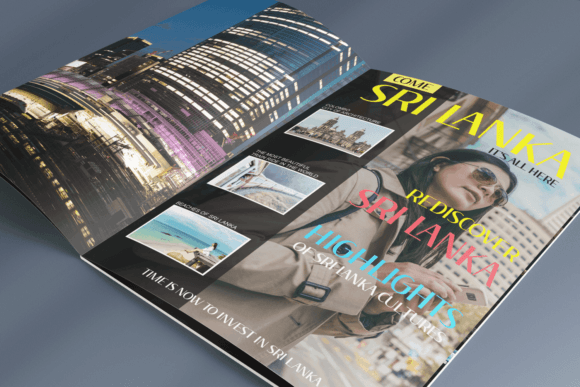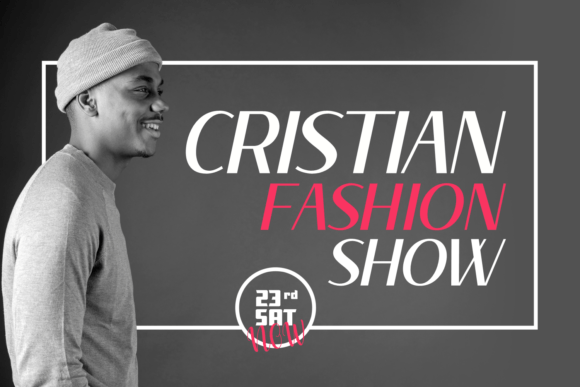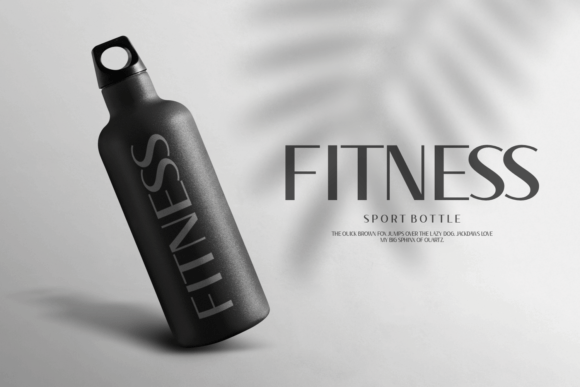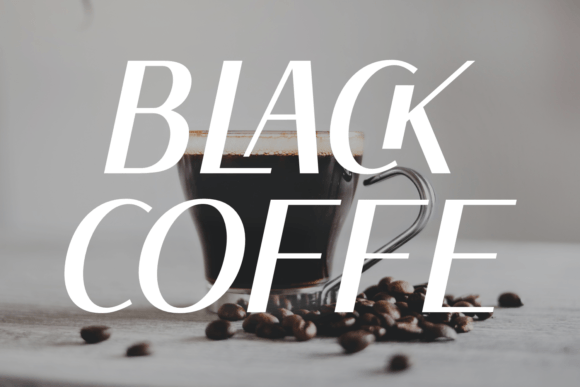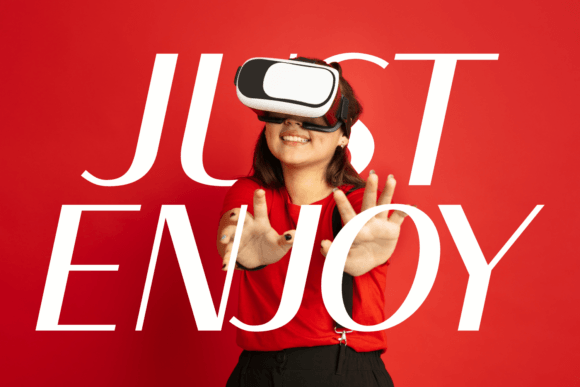
Introducing Chantik Font: Elevate Your Designs with Style and Elegance
In the world of typography, fonts play a crucial role in conveying the message and aesthetic of a design project. For designers and crafters looking for a stylish and versatile font, Chantik is an excellent choice. This modern sans serif font boasts clean lines, elegant curves, and a fashionable look that’s perfect for a wide range of design applications.
What Makes Chantik Font Stand Out?
Chantik’s unique blend of modernity and elegance sets it apart from other fonts. Its clean lines and smooth curves create a sophisticated look that’s ideal for designs that require a touch of refinement. The font’s sans serif design ensures clarity and legibility, making it suitable for both print and digital media.
Key Features of Chantik Font
- Modern and Fashionable Look: Chantik’s sleek design makes it perfect for projects that require a contemporary aesthetic.
- Clean Lines and Elegant Curves: The font’s smooth curves and clean lines create a sophisticated look that’s ideal for high-end designs.
- Versatility: Chantik is suitable for a wide range of design projects, including branding, logos, headers, and more.
- Legibility: The font’s clear and concise design ensures excellent legibility, making it perfect for both print and digital media.
Design Applications for Chantik Font
Chantik’s versatility makes it an excellent choice for various design projects, including:
- Branding: Create a lasting impression with Chantik’s stylish and elegant design.
- Logos: Use Chantik to create a unique and memorable logo that reflects your brand’s personality.
- Headers: Add a touch of sophistication to your headers with Chantik’s clean lines and elegant curves.
- Print Media: Use Chantik for brochures, flyers, posters, and other print materials to add a touch of elegance.
- Digital Media: Chantik is perfect for digital platforms, including websites, social media, and email marketing campaigns.
Why Choose Chantik Font?
With so many fonts available, why choose Chantik? Here are a few reasons why designers and crafters love Chantik:
- Unique Design: Chantik’s modern and fashionable look sets it apart from other fonts.
- High Legibility: The font’s clear design ensures excellent legibility, making it perfect for a wide range of design applications.
- Versatility: Chantik is suitable for various design projects, from branding to digital media.
- Elegance: The font’s elegant curves and clean lines add a touch of sophistication to any design.
In conclusion, Chantik font is an excellent choice for designers and crafters looking for a stylish and versatile font. Its modern and fashionable look, clean lines, and elegant curves make it perfect for a wide range of design applications. With its high legibility and versatility, Chantik is an excellent addition to any design project. Whether you’re working on branding, logos, headers, or digital media, Chantik is sure to elevate your designs with style and elegance.